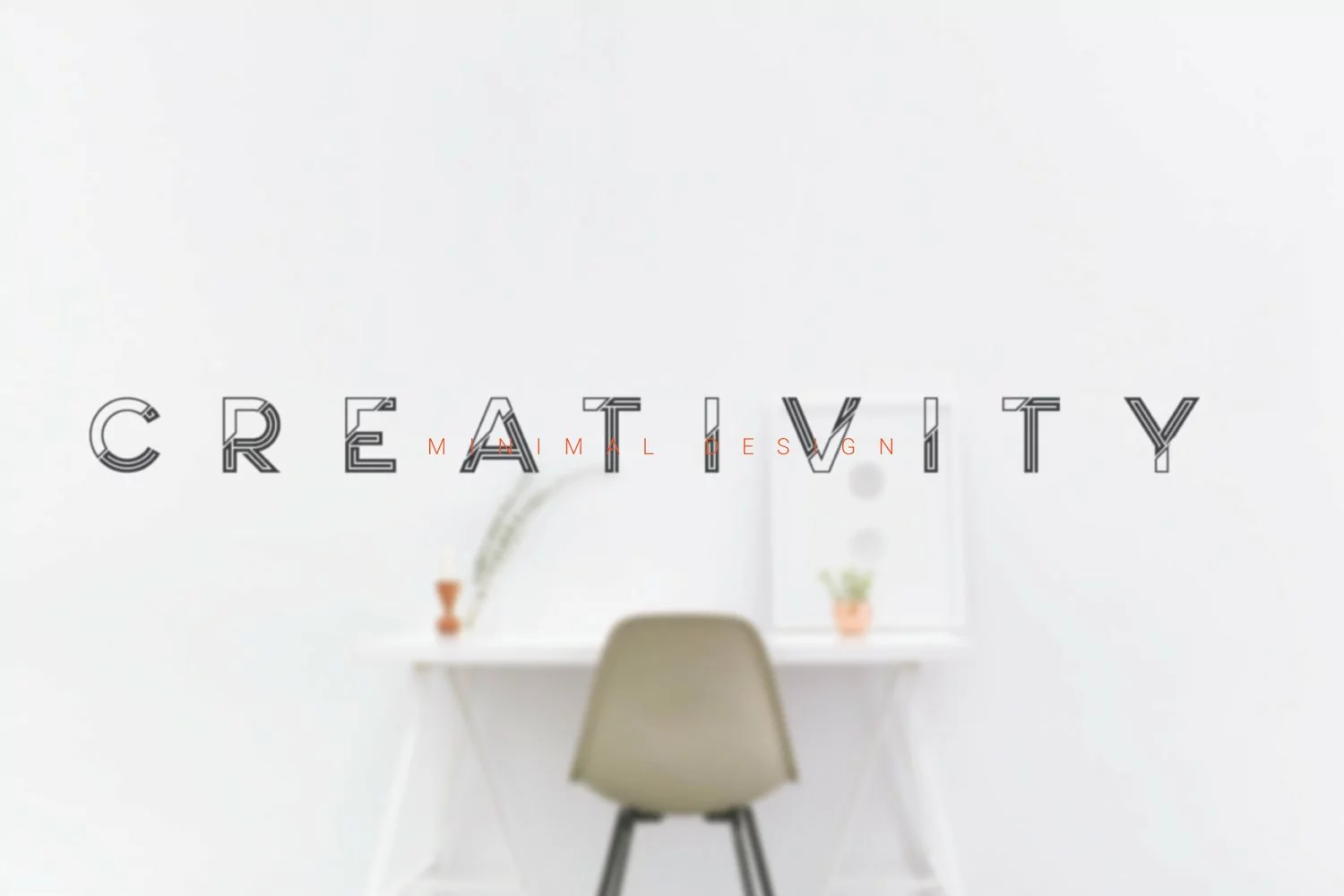
Blue Venom is a unique typography with a modern style, Each letter is cut into two parts, the first consists of three labyrinthine combined lines and the other is a diagonal cut line, so that the combination of these two parts into one letter that looks stunning , and each letter consists of four character choices, two character choices for numbers, and equipped with Ligatures (Opentype feature)